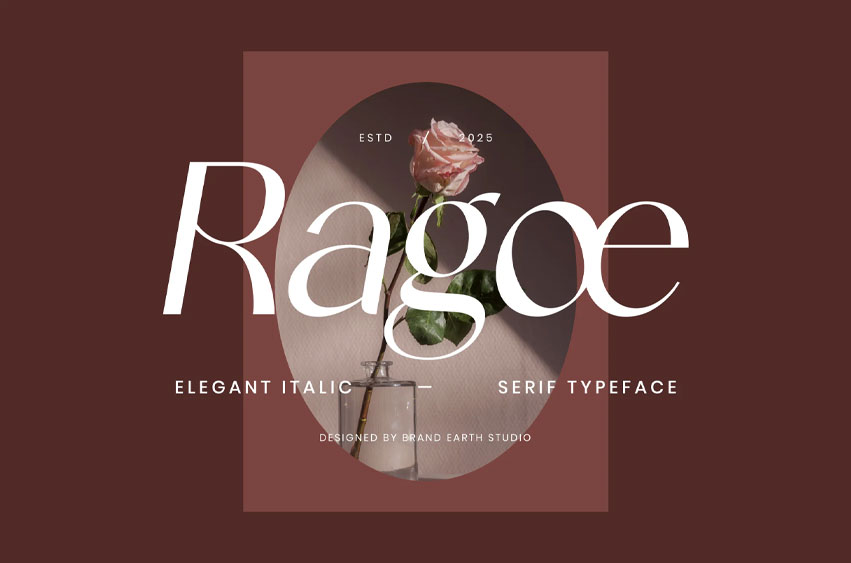
Ragœ Italic Font
Ragœ Italic Font Serif Font is a sophisticated serif typeface that blends bold modern aesthetics with timeless elegance. Its sharp contrasts, refined forms, and creative ligatures make it ideal for high-end fashion editorials, brand identities, magazine headlines, and artistic layouts. Whether in print or digital, Ragoo lends a premium, confident voice to your typography-driven projects.
• Ligatures & Alternate